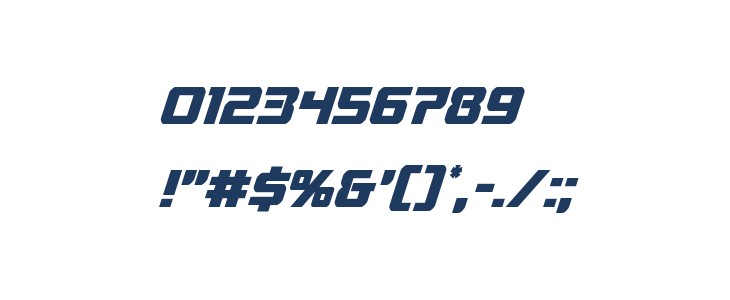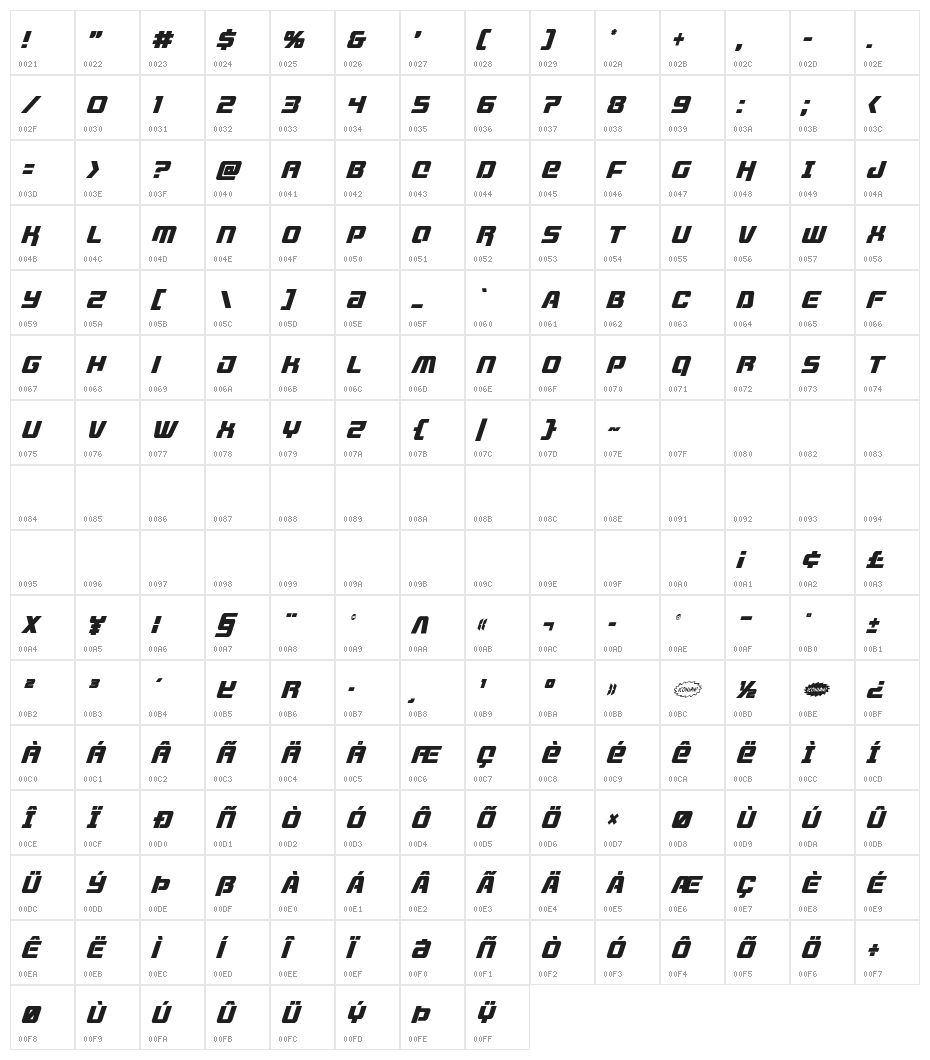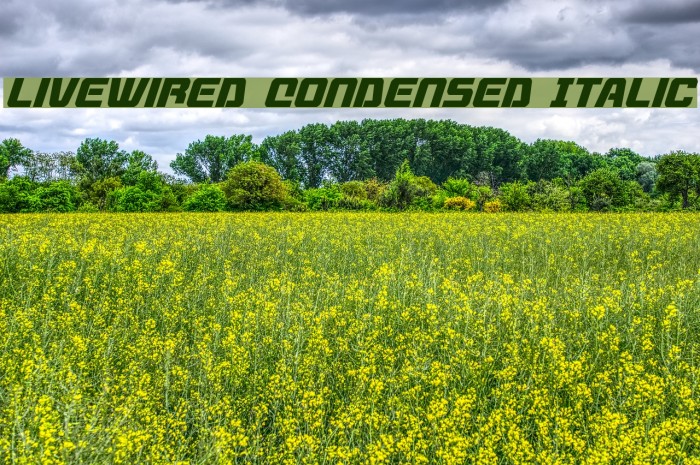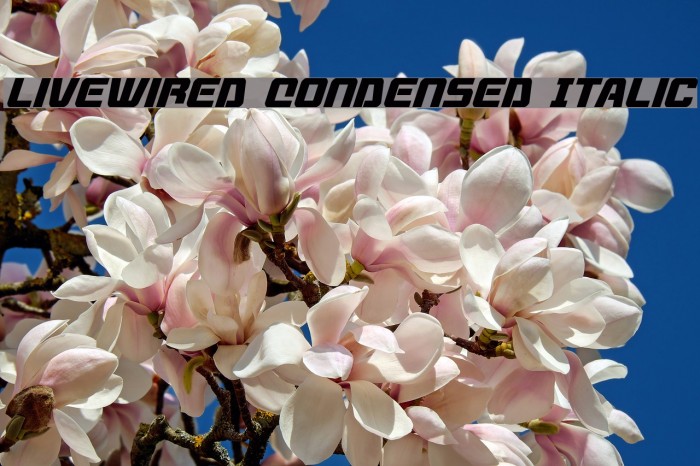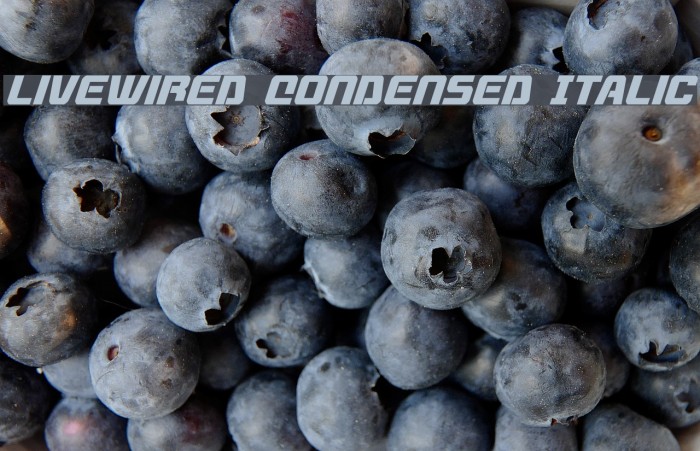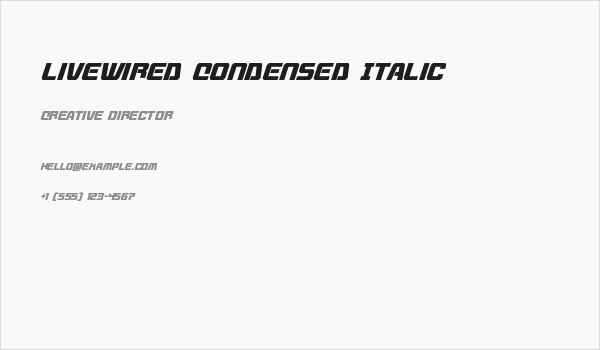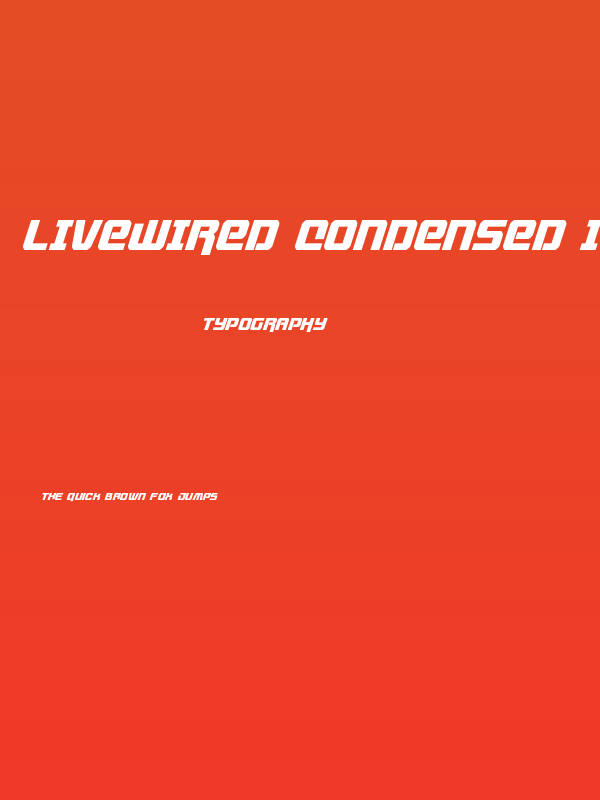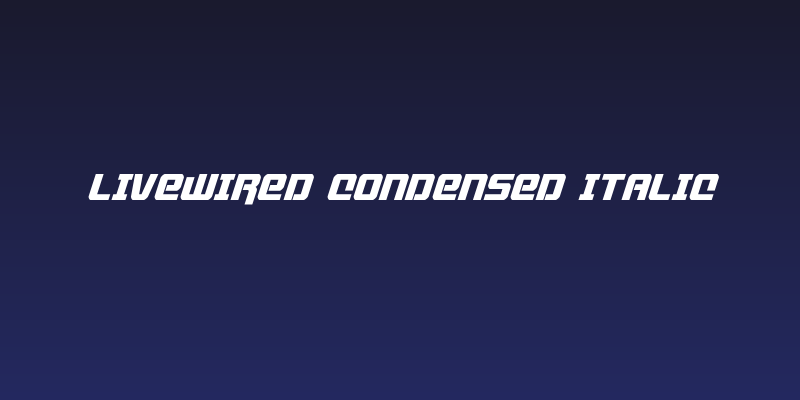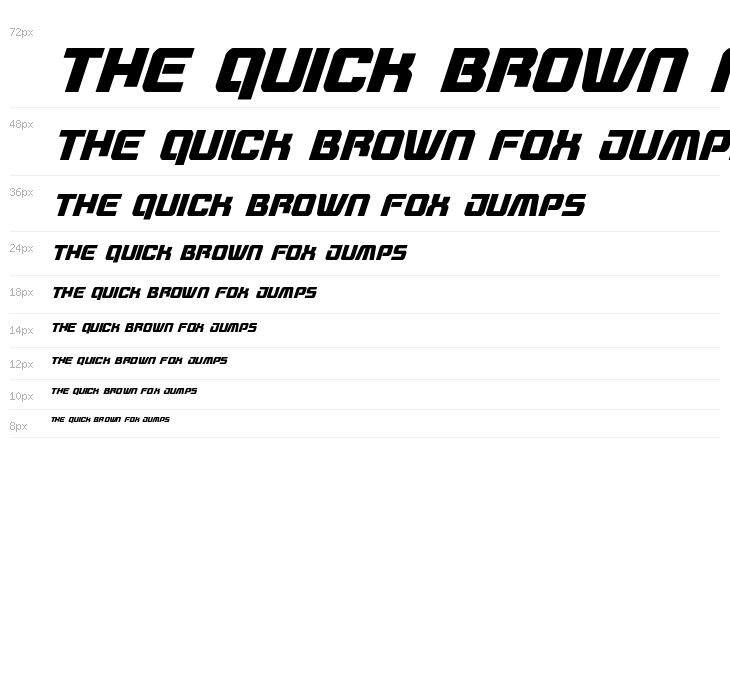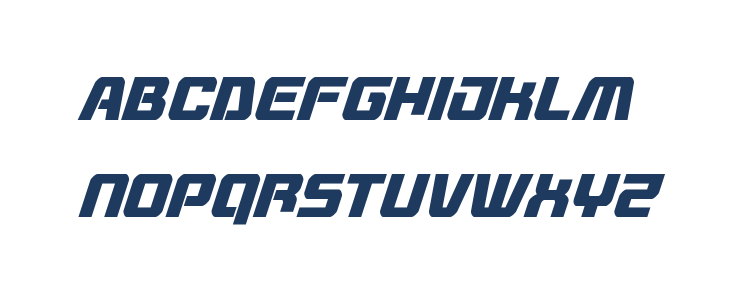
Livewired Condensed Italic Font
Livewired Condensed Italic Description
This font features a bold, condensed style with a distinct italic slant, giving it a dynamic and energetic appearance. The characters are designed with sharp angles and clean lines, creating a futuristic and modern aesthetic. The uppercase and lowercase letters maintain a consistent height, enhancing readability while preserving the font's unique style. Numbers and special characters are integrated seamlessly, matching the angular and bold characteristics of the alphabet. The overall design is sleek and contemporary, making it suitable for projects that require a strong visual impact.